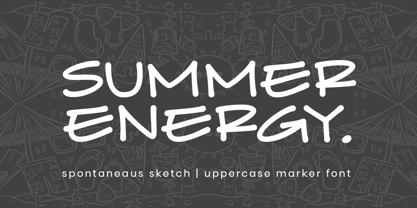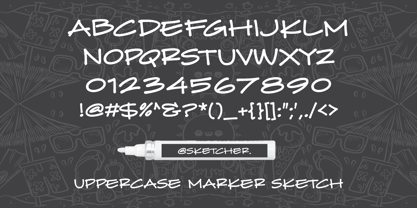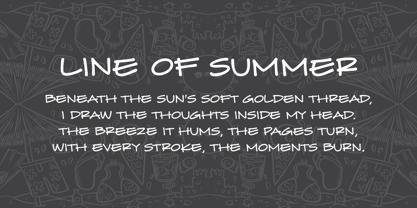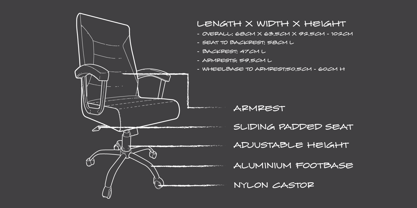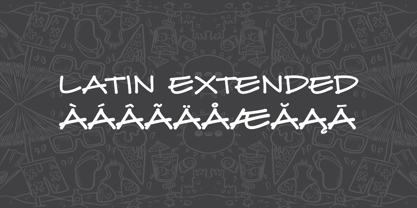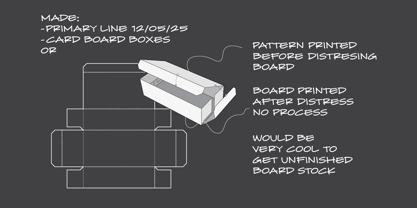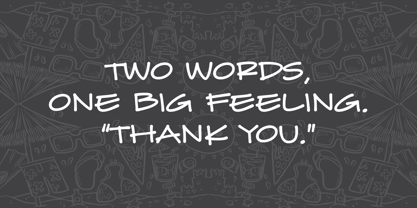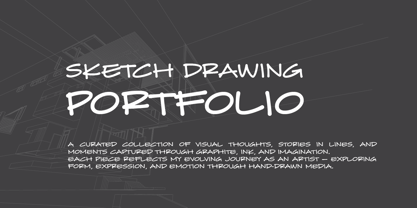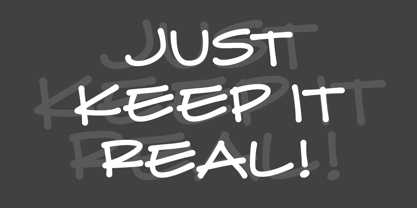
Summer Sketch
by MMMA Creative
The Summer Sketch Font Family was designed by Muhammad Ridha Agusni, Muhammad Mevlana Maliq Azizi and published by MMMA Creative. Summer Sketch contains 1 styles. More about this family
Summer Sketch is a bold, all-uppercase marker font inspired by the raw charm of spontaneous handwriting. Its form reflects the energy of quick, confident strokes, similar to the natural flow of an architect’s hand sketching freely on paper. Each letter is casual and imperfect, yet intentional, creating a rhythm that feels expressive, personal, and full of character.
This typeface is designed for creatives who want their message to feel handmade and alive. It works beautifully for posters, sketchbook covers, journals, branding, or any design that needs bold expression with a personal touch. Complete with uppercase letters, numbers, punctuation, and Latin Extended support, Summer Sketch brings a fresh and free-spirited feel to every project while staying visually strong and approachable.
Designers: Muhammad Ridha Agusni, Muhammad Mevlana Maliq Azizi
Foundry: MMMA Creative